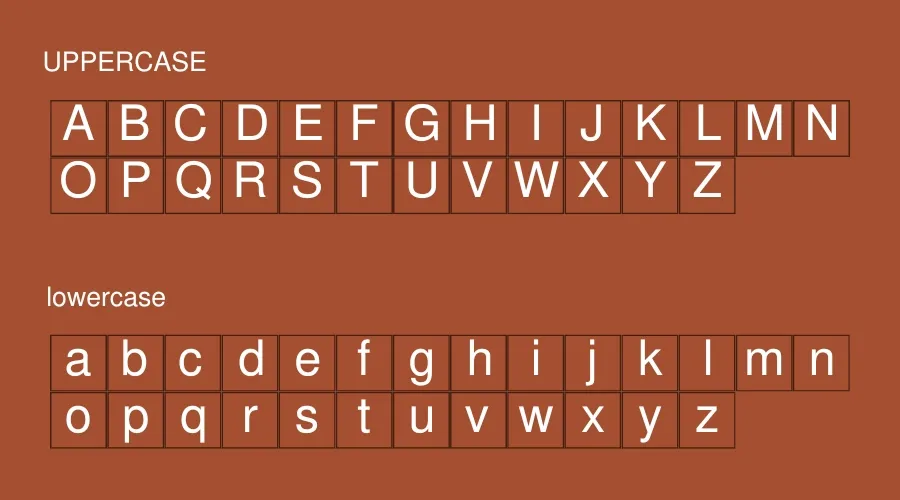
About Nimbus Sans Font
Nimbus Sans Font is a sans serif style on the website, you can download the free version of this style so you can utilize it without purchasing it. It has a clean texture appearance with great readability. This sans serif font is designed by a well-known font-making studio named URW Studio. You can download this font in OTF and TTF file versions from this source.
Medium thickness is ideal for body text, while more impactful editions highlight info or highlight headings or details. Such visually rational models are planned to blend perfectly with respectively diverse. This typeface is very similar to the gill sans font.
The typeface has been used in a variety of types of designs for many reasons. Your simple designs will look bold and stylish with them. Due to its extra bold characters, it works well for titles and headings of various types of websites, blogs, web pages, and personal text documents.